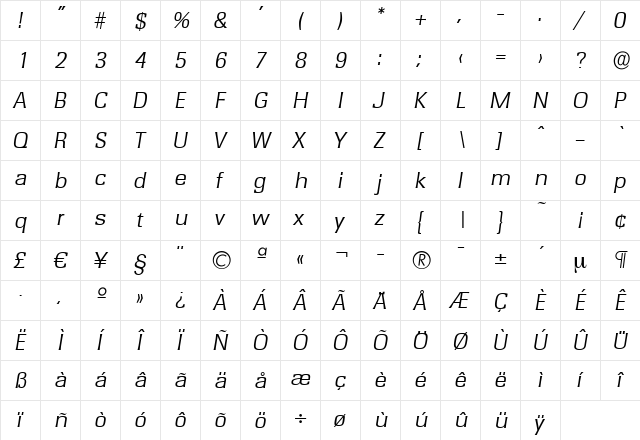
WalterBecker-Light Italic Font Preview
Design Context for WalterBecker-Light Typeface
WalterBecker-Light offers clean, dependable letterforms without strong stylistic allegiance, making it a practical choice for designers who need flexibility. Its italic angle brings a sense of urgency and motion to the letterforms. The delicate stroke weight brings airiness and refinement to layouts.
Pro Tip: Try WalterBecker-Light for annotation and caption copy alongside an upright companion — the contrast in angle creates a dynamic but ordered typographic system.